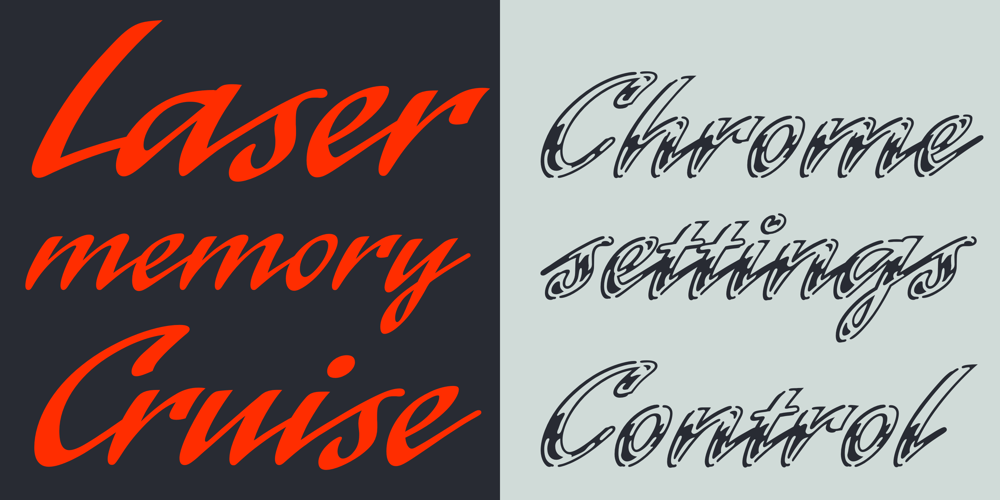
Laser
Laser font
Laser Font Family was designed by Martin Wait and published by ITC. Laser contains 2 styles and family package options. Laser is the work of British designer Martin Wait. The typeface family includes Laser, a slick and modern script typeface, and Laser chrome, its glossy, chromium alternative. The capitals are meant to be used only as initials in combination with the lowercase alphabet and are best used slightly overlapping each other in a display text. Laser is ideal wherever an energetic style is needed.